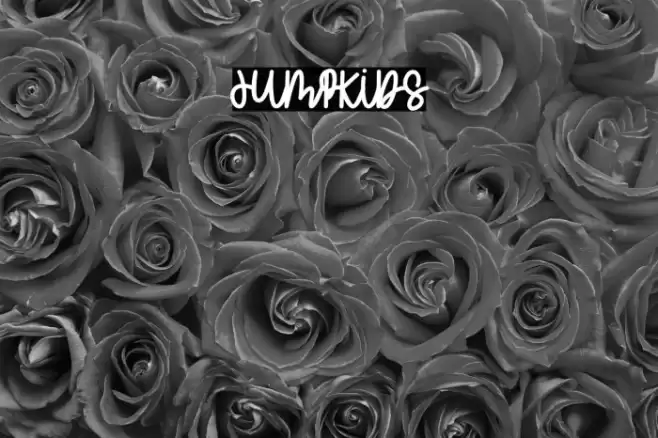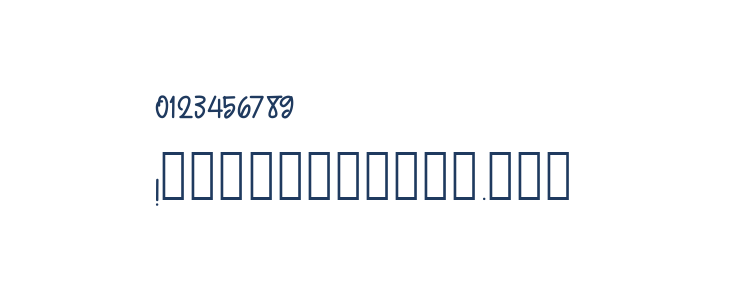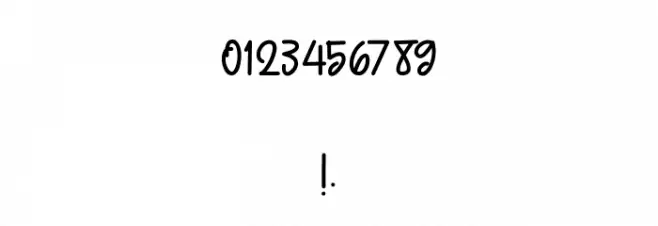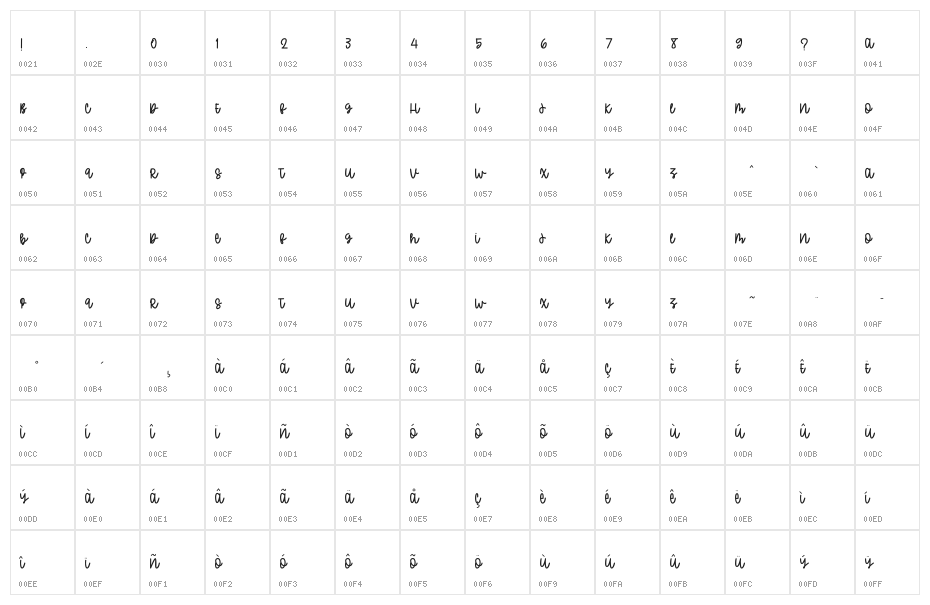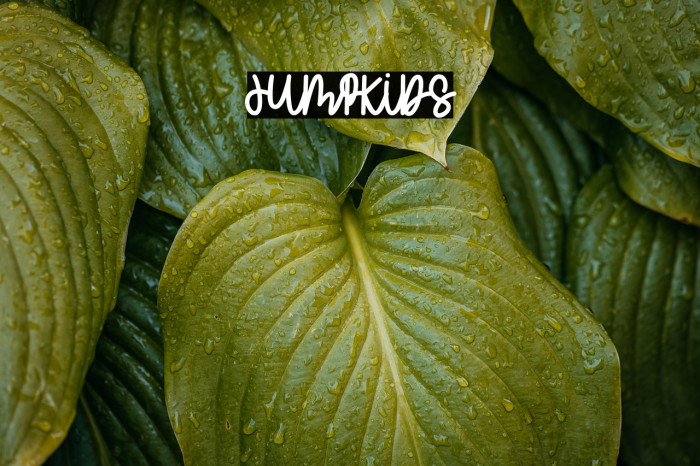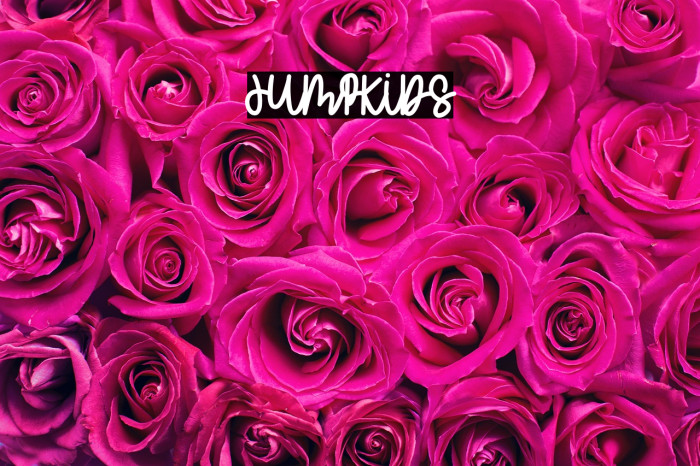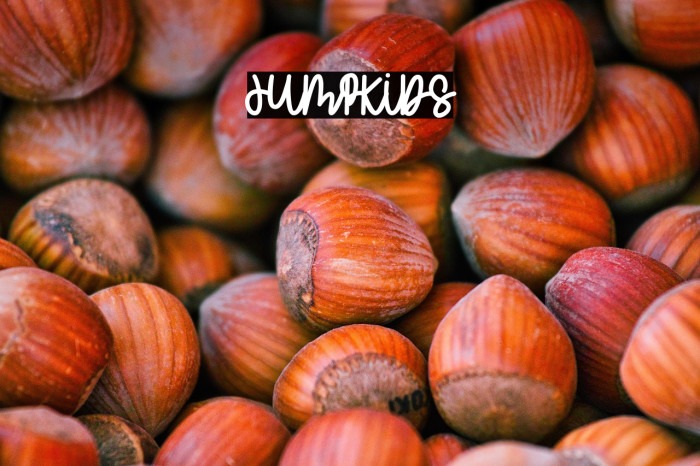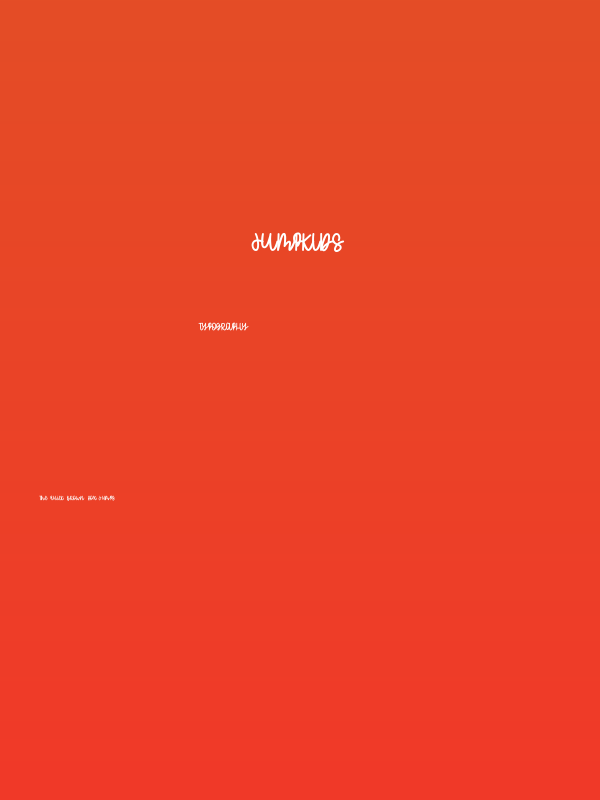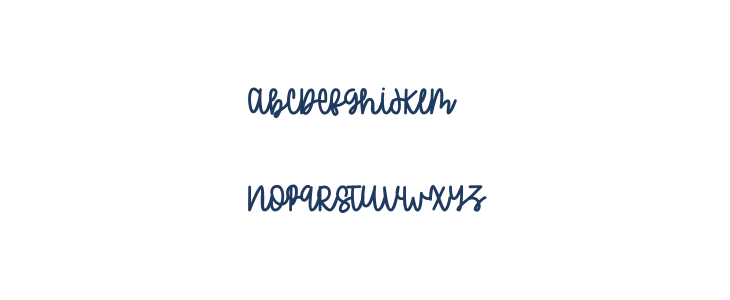
JUMPKiDS Font
JUMPKiDS Description
This font features a playful and whimsical script style with a handwritten appearance. The letters are connected, giving it a fluid and dynamic look. The strokes are consistent in thickness, providing a smooth and cohesive visual flow. The characters have a slight slant, enhancing the casual and informal feel. The numbers and special characters maintain the same playful aesthetic, making it suitable for creative and fun projects.
A playful, handwritten script font with connected letters and a whimsical style from Regular fonts.
- Proposed Projects: Ideal for children's book covers, playful branding, greeting cards, and creative social media graphics.
- Overall Style: Playful
- Use Case: Logos, Headlines, Creative projects